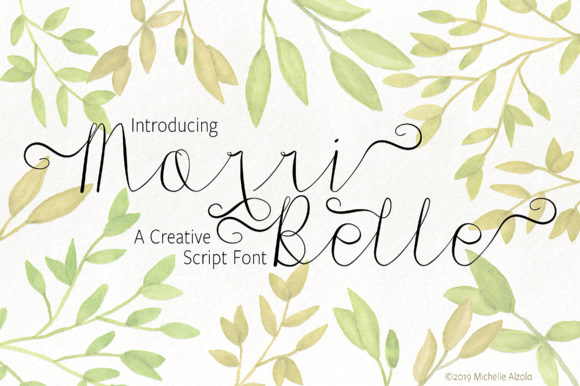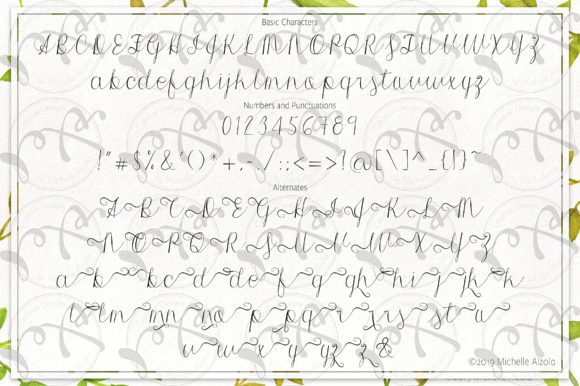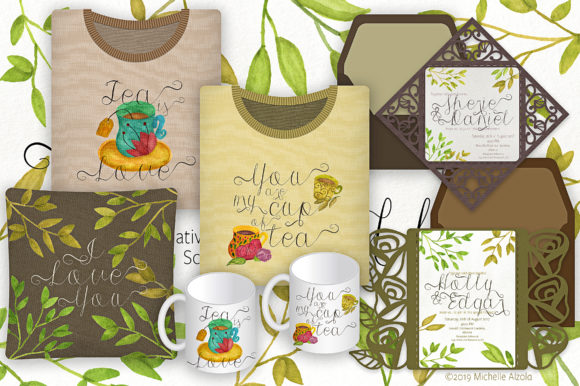
Morri Belle Script Font
About Morri Belle Script Font
The Morri Belle is a pretty handwritten font. It has a playful, yet elegant touch which can be used for invitations, greeting cards, branding, cut projects and a lot more!